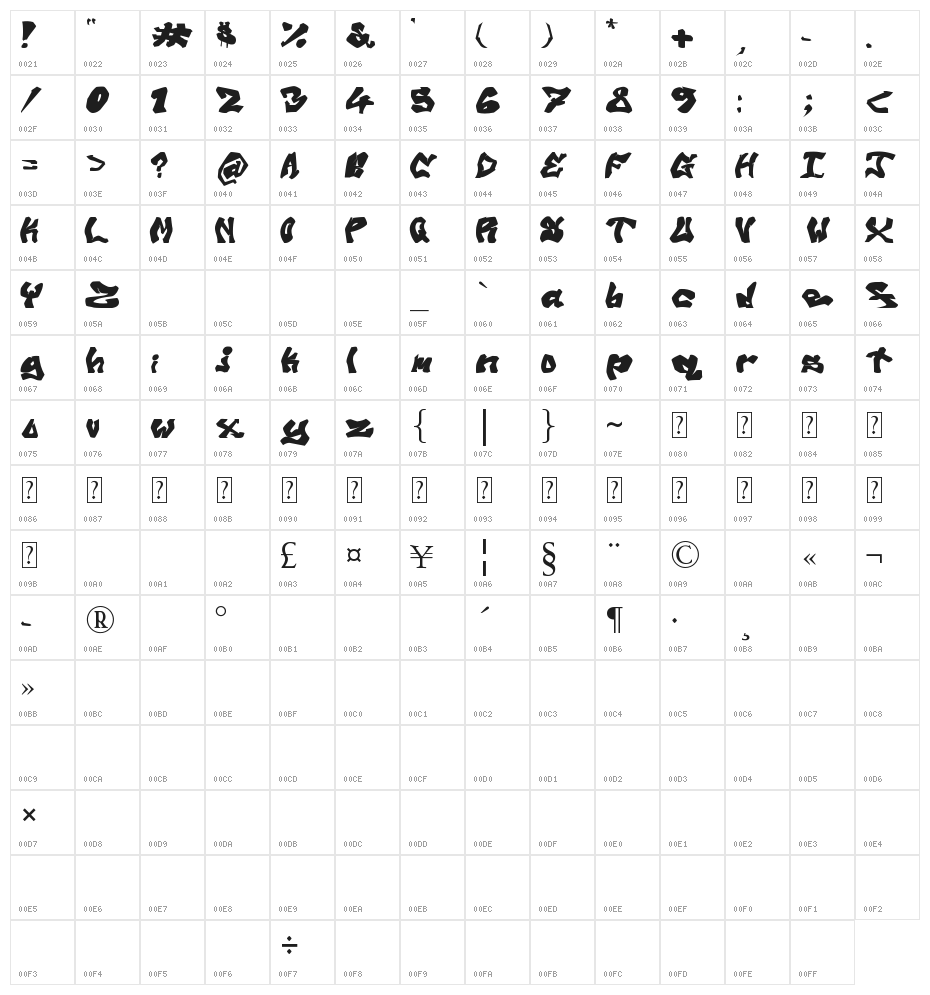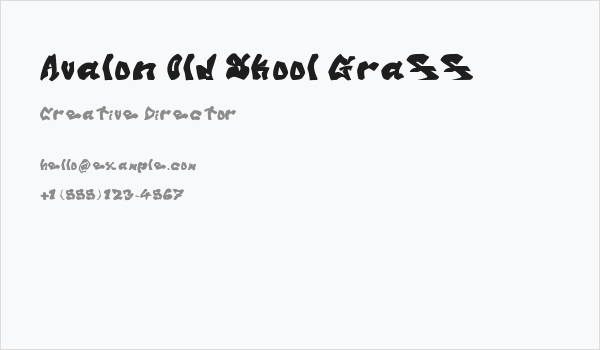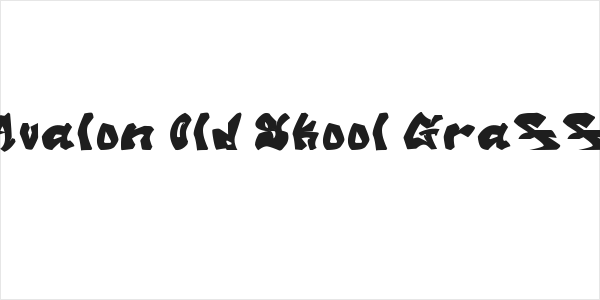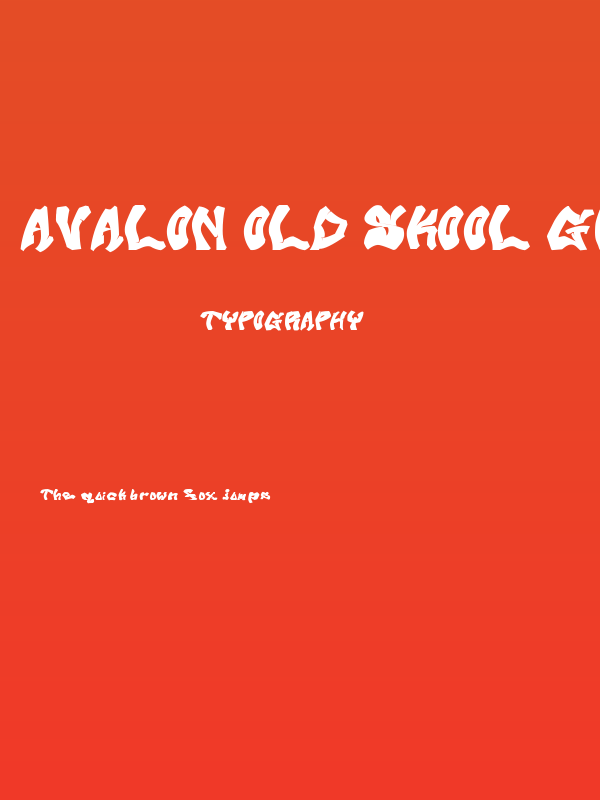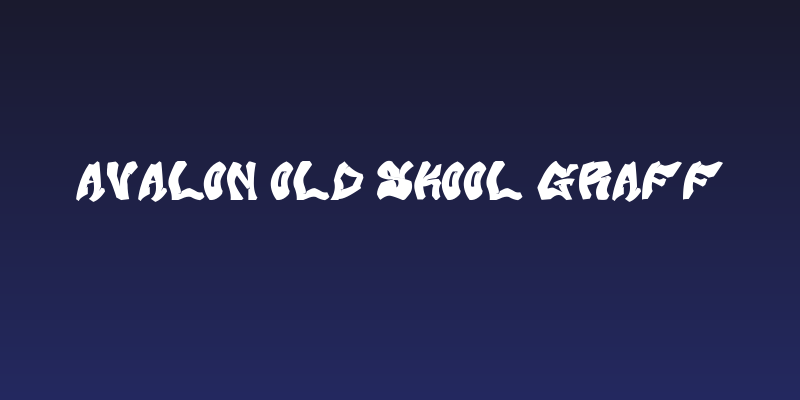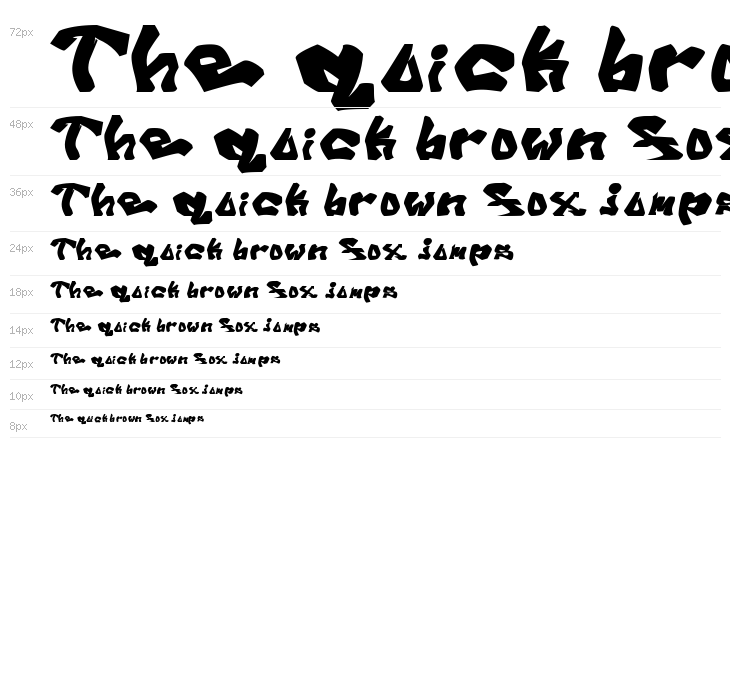
Avalon Old Skool Graff Font
Avalon Old Skool Graff Description
This font exudes a bold and dynamic graffiti style, reminiscent of urban street art. The characters are highly stylized with sharp angles and irregular shapes, giving them an edgy and rebellious appearance. The uppercase and lowercase letters maintain a consistent aesthetic, with each character appearing as if it has been hand-sprayed with a can of paint. The numbers and special characters follow the same design principles, ensuring a cohesive look across all glyphs. This font captures the essence of old-school graffiti, making it perfect for projects that require a raw and energetic vibe.
| Overall Style | Urban, Graffiti, Edgy |
| Use Case | Logos, Posters, Headlines |
| Proposed Projects | Ideal for streetwear branding, music album covers, urban event posters, and graffiti-themed designs. |